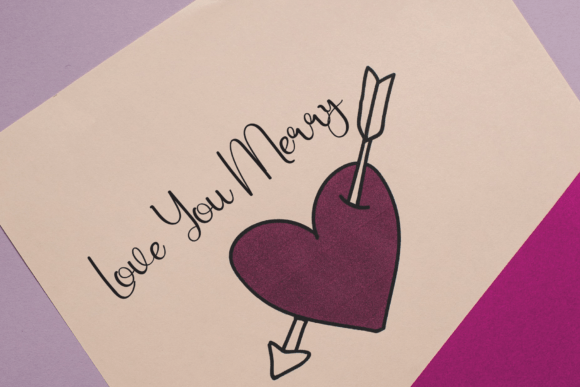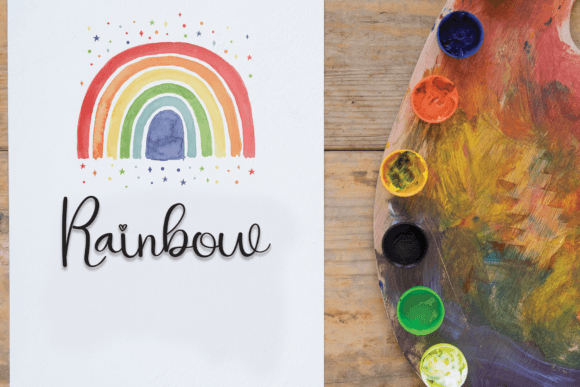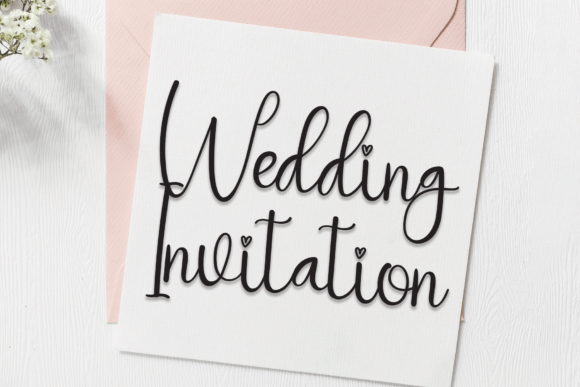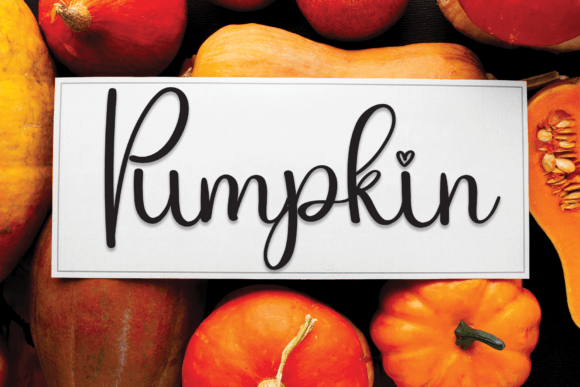
Introducing Farmhouse Font: The Perfect Handwritten Companion for Designers and Crafters
Are you on the hunt for a font that adds a personal touch to your designs, crafts, and digital projects? Look no further than the charming Farmhouse Font! This fun and friendly handwritten font is versatile, easy to read, and perfect for a wide range of applications, from crafting and digital design to presentations and greeting cards.
The Characteristics of Farmhouse Font
So, what makes Farmhouse Font so special? For starters, its handwritten style gives it a warm, approachable feel that’s hard to achieve with more traditional fonts. The letters are carefully crafted to have a uniform look and feel, making it easy to read and understand. The font also features:
- Unique character set: Farmhouse Font includes a wide range of characters, numbers, and punctuation marks, ensuring that you have everything you need to create beautiful text.
- Clean and legible: The font is designed to be easy to read, even at smaller sizes, making it perfect for body text or captions.
- Flexible and adaptable: Use Farmhouse Font for digital designs, print materials, or even handwritten crafts – it adapts seamlessly to any medium.
Why Designers and Crafters Love Farmhouse Font
Whether you’re a professional designer or a crafter looking for a special touch, Farmhouse Font has something to offer. Here are just a few reasons why it’s quickly becoming a favorite:
- Time-saving: With Farmhouse Font, you can create beautiful text in minutes, freeing up more time for the creative aspects of your project.
- Customizable: Experiment with different colors, sizes, and styles to make Farmhouse Font your own.
Ideas for Using Farmhouse Font
So, how can you use Farmhouse Font in your projects? Here are a few ideas to get you started:
- Crafting: Add a personal touch to your handmade crafts, such as knitted items, jewelry, or woodwork.
- Digital design: Use Farmhouse Font in social media graphics, blog posts, or website headers for a friendly, approachable vibe.
- Presentations: Add a touch of warmth and personality to your presentations, making them more engaging and memorable.
- Greeting cards: Create beautiful, one-of-a-kind greeting cards for special occasions.
Tips for Getting the Most Out of Farmhouse Font
To make the most of Farmhouse Font, keep the following tips in mind:
- Experiment with colors: Try pairing Farmhouse Font with different colors and textures to create unique effects.
- Mix and match: Combine Farmhouse Font with other fonts or graphics to add visual interest.
- Keep it simple: Don’t be afraid to use Farmhouse Font on its own – its simplicity can be a powerful design statement.
In conclusion, Farmhouse Font is a versatile, friendly, and fun handwritten font that’s perfect for designers, crafters, and anyone looking to add a personal touch to their projects. With its unique character set, clean design, and adaptability, it’s no wonder Farmhouse Font is quickly becoming a favorite among creatives. So why wait? Give Farmhouse Font a try today and see how it can elevate your designs and crafts!